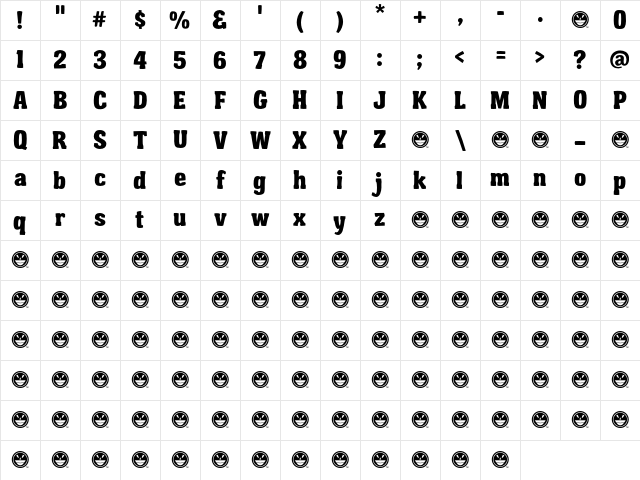
Complete Garishing Worse Regular glyph index. Displaying only characters natively supported by Garishing Worse Regular font.
Garishing Worse is a composed and adaptable typeface that performs quietly and consistently across a wide range of design contexts.